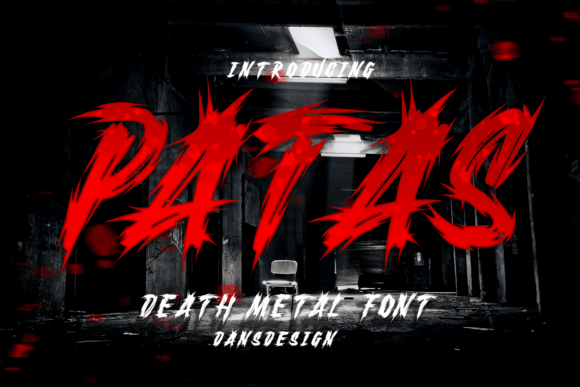
Immerse yourself in the world of darkness and mystery with Patas Font, the ultimate display typeface inspired by horror and metal aesthetics. Unleash your creativity and transport your designs into a realm of the macabre.
Patas Font is the brainchild of Dansdesign, a visionary artist with a passion for pushing boundaries. This daring typeface embodies the very essence of fear, captivating your audience with its sharp edges and menacing presence.
With Patas Font, you hold the key to unlocking a world of dark allure. Let your words drip with spine-chilling elegance as you craft titles that send shivers down the spine. Design posters that evoke an atmosphere of dread and intrigue, leaving an indelible mark on your audience's minds.
Picture your designs adorned with Patas Font, a haunting display typeface that commands attention and inspires awe. It's perfect for creating logos that exude power and menace, posters that scream for attention, and social media graphics that captivate and intrigue.
But Patas Font is more than just a mere typeface; it's a gateway to a realm of limitless creativity. It's an invitation to explore the depths of your imagination and bring your darkest visions to life.
So, if you dare to embrace the power of darkness, if you seek to create designs that haunt and enthrall, then Patas Font awaits you. Step into the shadows and let your imagination run wild. The world of horror awaits your creative touch.